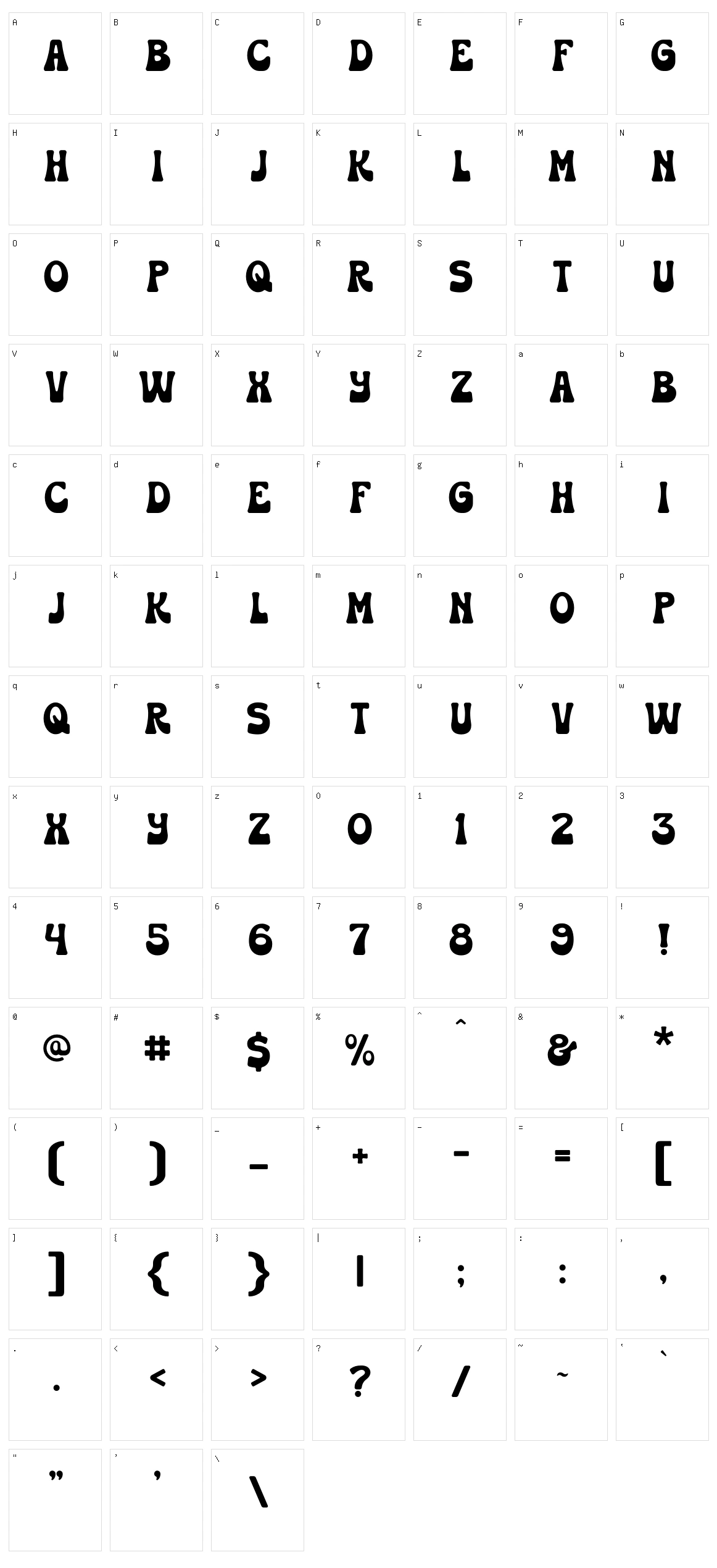
The free font Huston is carefully designed by Storytype Studio, showcasing a thoughtful balance of creativity and usability and falls under the Groovy font style. When you download the ZIP file, it contains only 20.66 KB of font files, making it lightweight and quick to download. Please review the license details below to understand permitted usage and distribution rights. If license information is not available, we recommend using this font for personal projects only or contacting the author directly for commercial usage permissions.